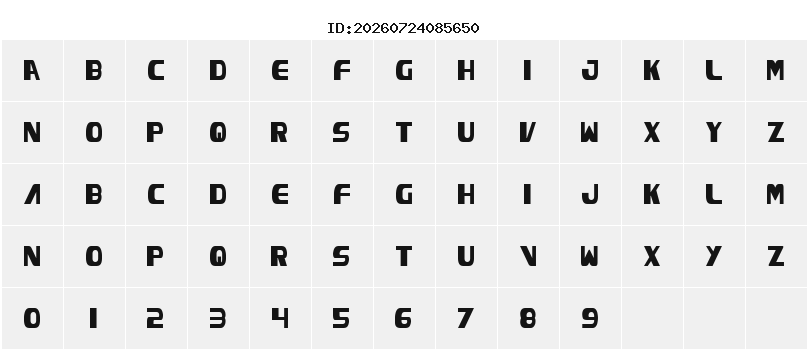
Excelsior Condensed Preview
• Font Name: Excelsior Condensed
• Font Style: Condensed
• Font ID: Excelsior
• Full Font Name: Excelsior Condensed
• PostScript Name: ExcelsiorCondensed
About Excelsior Condensed.ttf
Excelsior Condensed.ttf is a modern, elegant sans-serif font designed for ultimate readability and visual harmony. Perfect for branding, headlines, web design, and print materials.